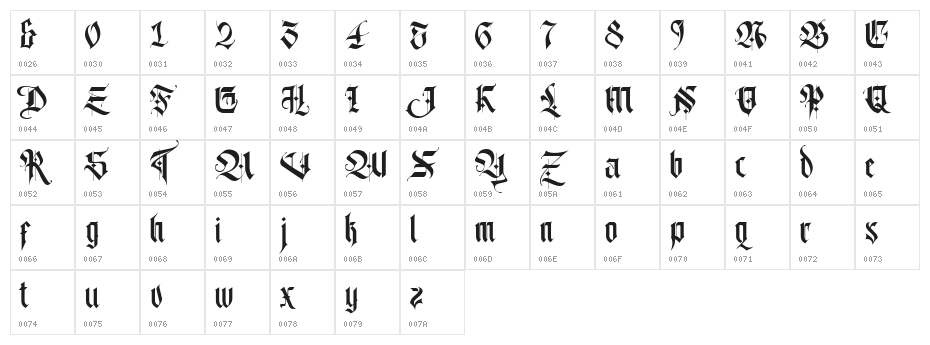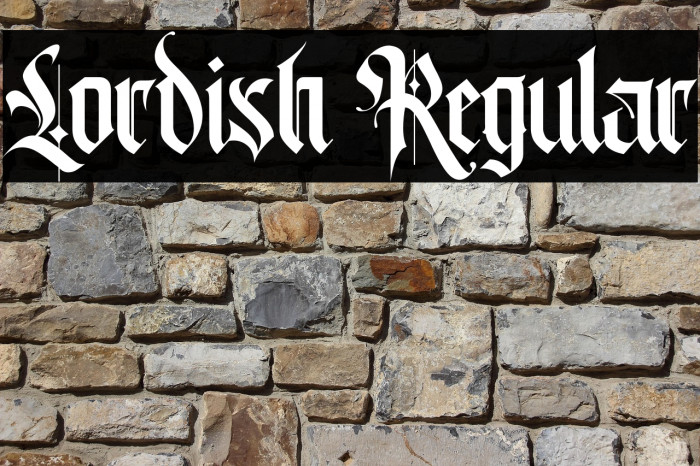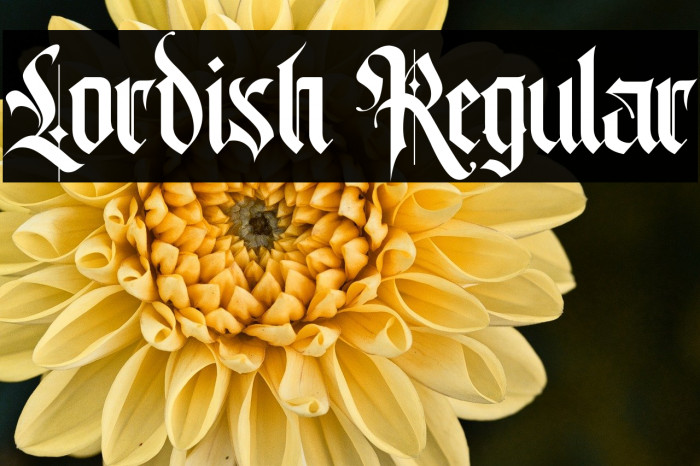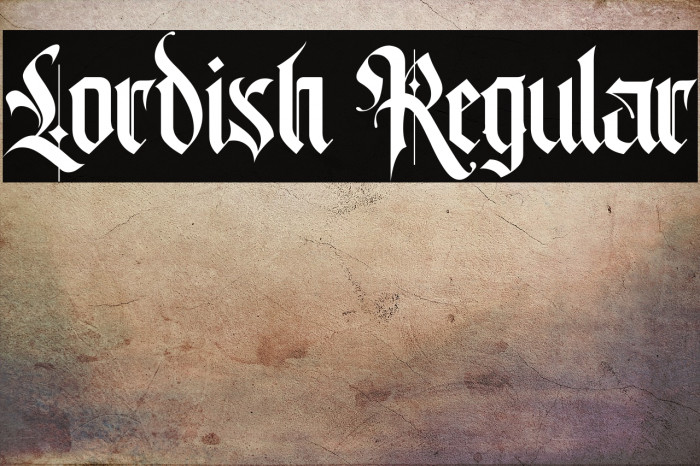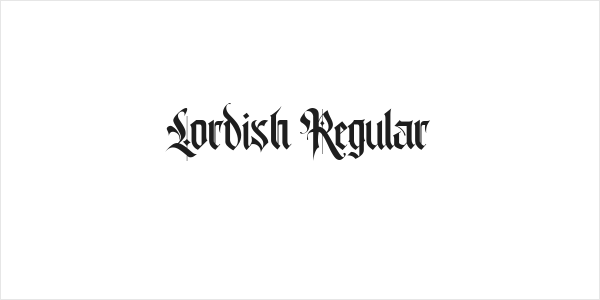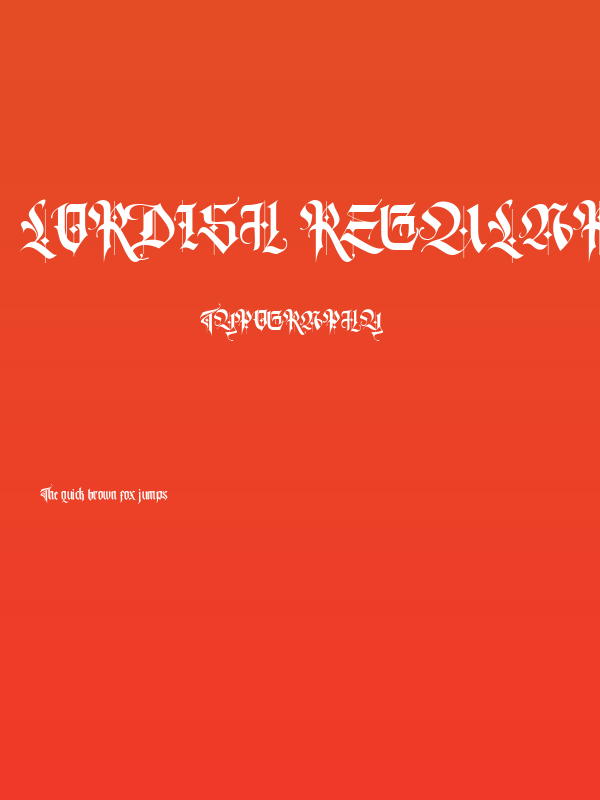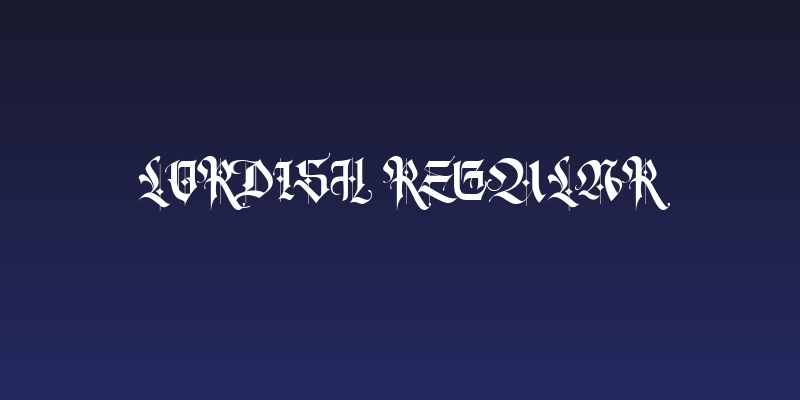
Lordish Regular Font
Lordish Regular Description
This font exhibits a striking blackletter style, characterized by its intricate and ornate design. The letters are bold and angular, with sharp edges and elaborate flourishes that give it a distinctly medieval appearance. The uppercase letters are particularly elaborate, featuring dramatic curves and pointed serifs that enhance its gothic aesthetic. The lowercase letters maintain the same level of detail, ensuring consistency throughout the typeface. Numbers and special characters are equally stylized, making this font suitable for projects that require a historical or dramatic flair.
| Proposed Projects | Ideal for use in historical documents, fantasy-themed designs, book covers, and branding that requires a dramatic and medieval touch. |